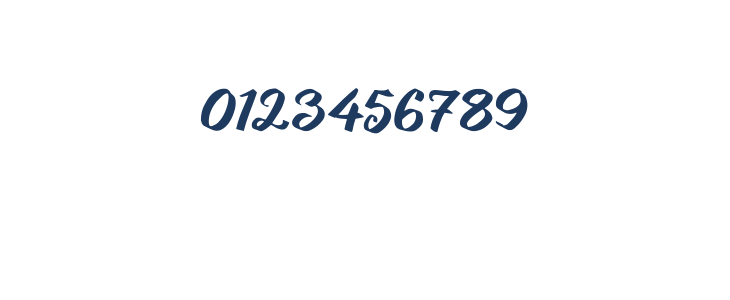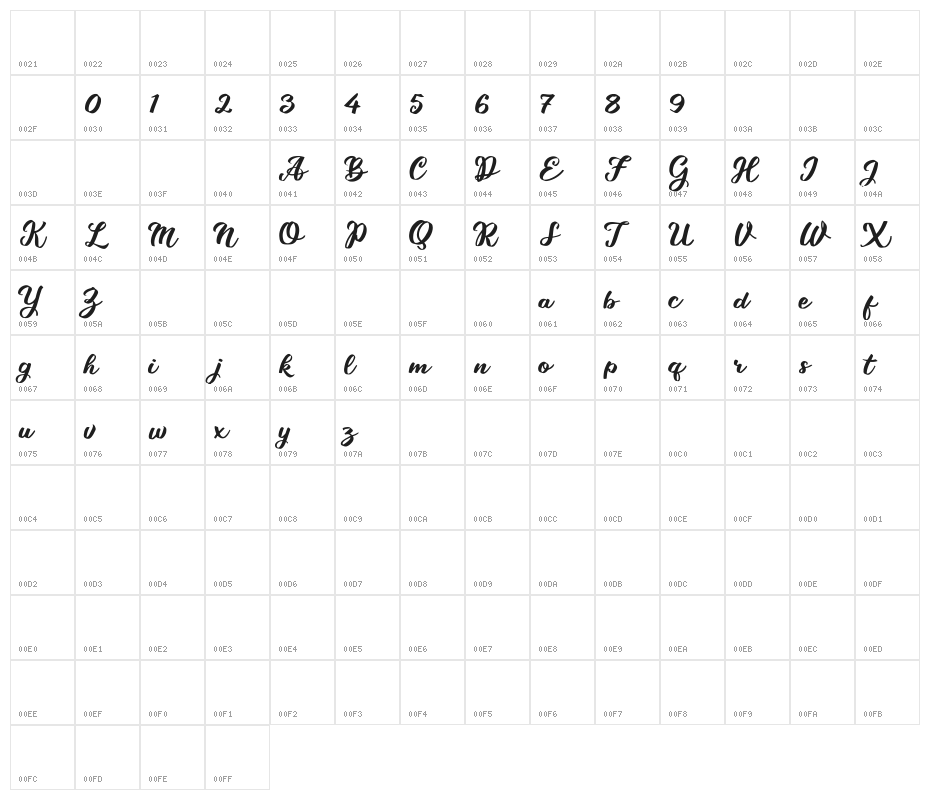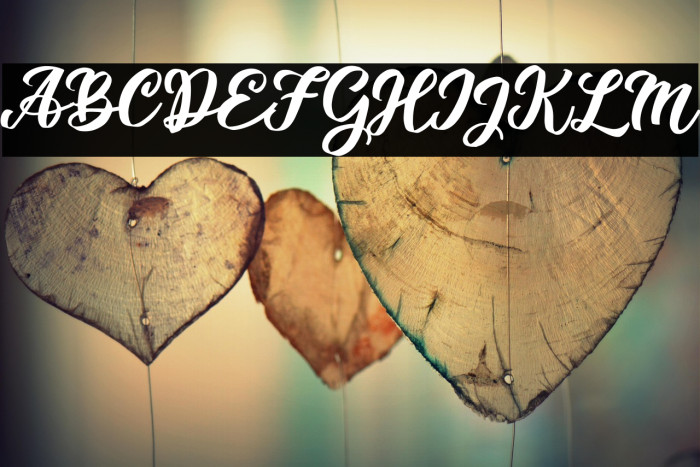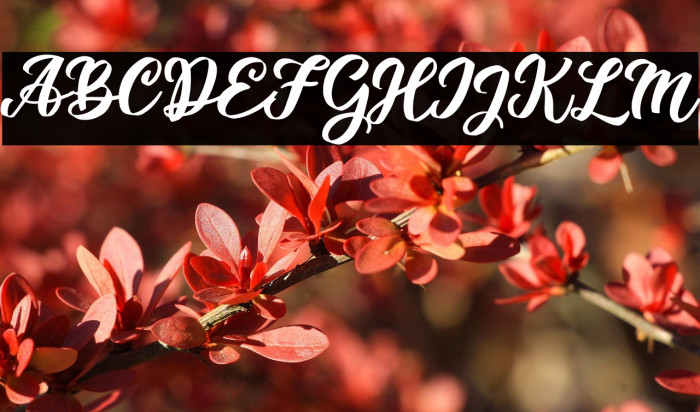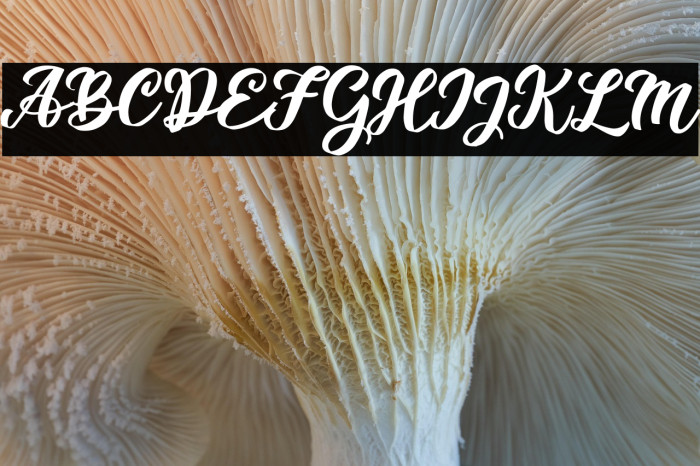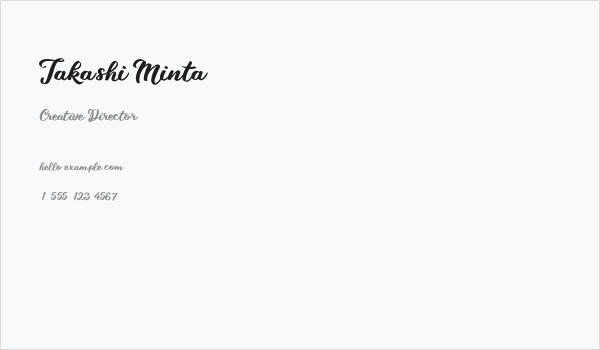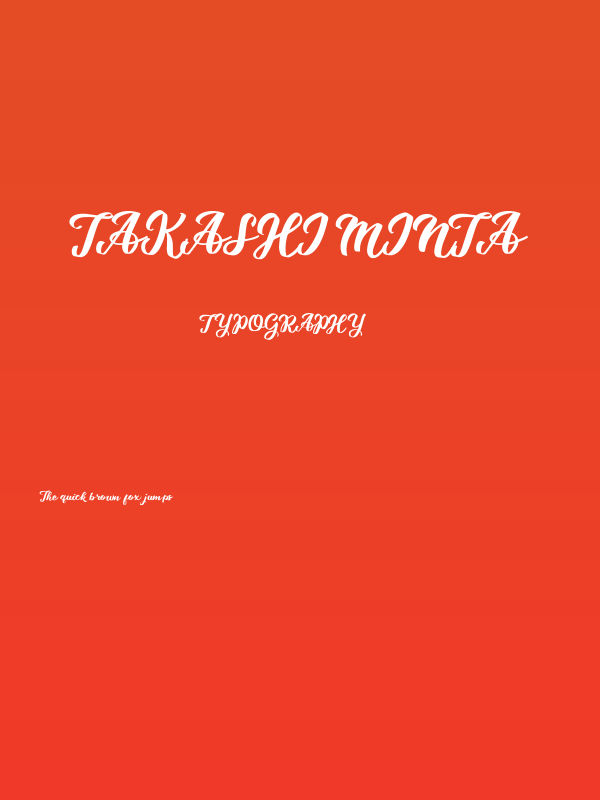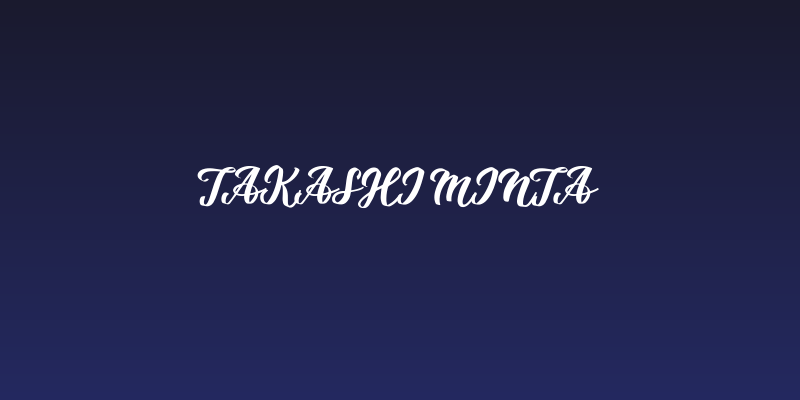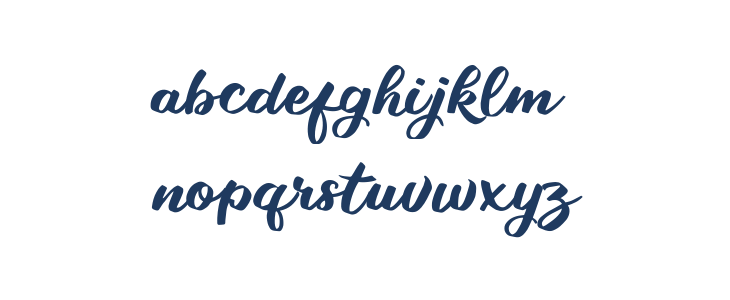
Takashi Minta Font
Takashi Minta Description
This font features a bold and flowing script style, characterized by its elegant and connected letterforms. The uppercase letters are ornate with sweeping curves, while the lowercase letters maintain a consistent rhythm and fluidity. The numbers are equally stylized, matching the overall aesthetic with their dynamic shapes. The font exudes a sense of sophistication and creativity, making it ideal for projects that require a personal touch. Its decorative nature is balanced by a clear readability, ensuring it stands out while remaining legible.
| Proposed Projects | Ideal for wedding invitations, branding, greeting cards, and artistic projects. |